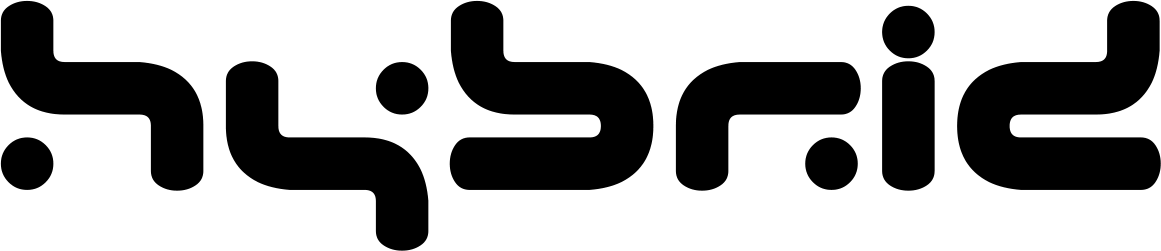
Hybrid Font
Designed byBeyond Design
Techno fonts usually bring a futuristic and digital look with them and this typeface is no exception. Hybrid contains two fonts in bold and hollow styles which have a mysterious and smart look on them. You can use them in cryptography, sci-fi movies and books, channel banners, and computer blogs. This 80s sci-fi font is almost unreadable.